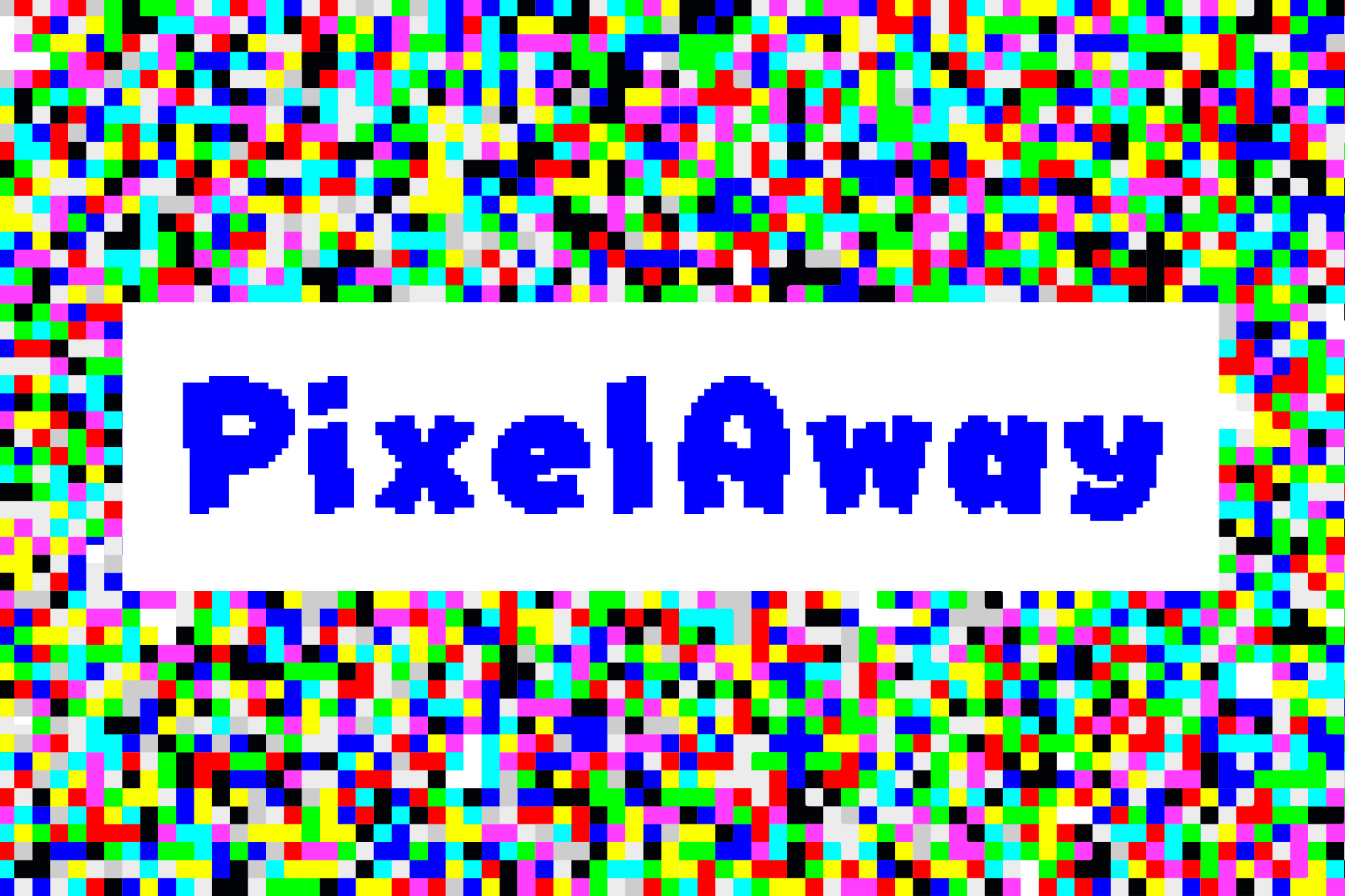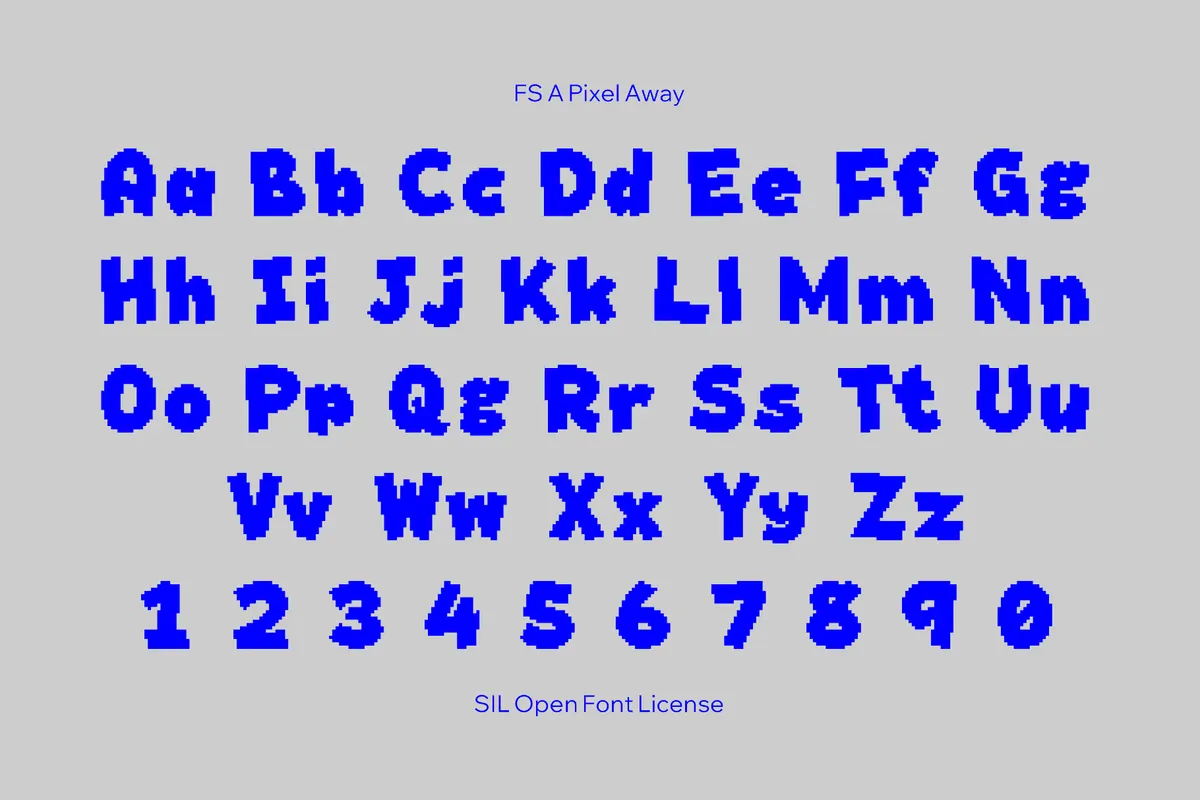
FS A Pixel Away
FS A Pixel Away is a bold handwriting face with chunky strokes and slightly irregular contours. Soft, rounded pixels, bouncy curves, and somewhat uneven edges recall cartoon title cards more than strict 8-bit UI. Use it for indie game menus, dialogue boxes, playful UI labels, stream overlays, panels, festival and event posters, stickers and badge graphics, magazines and mini-comics, children’s apps, educational materials, and social posts.
- Uppercase and lowercase letters, numbers, punctuation, and basic symbols.
- Multilingual Latin coverage across Latin-based languages.
- Additional Hiragana set.